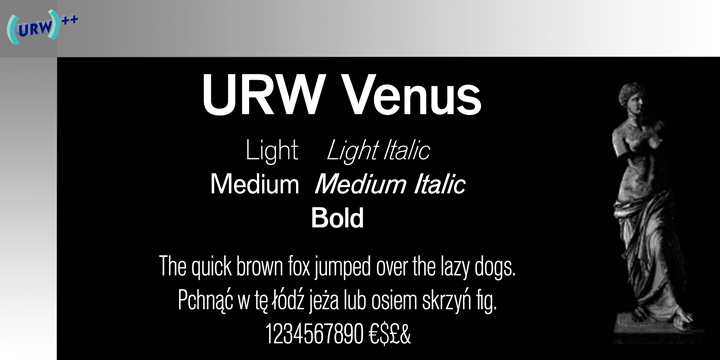
The Venus Font is perfectly designed for numerous elegant applications including beauty brand logos, luxury fashion campaigns, cosmetic packaging designs, jewelry advertisements, spa and wellness branding, feminine lifestyle magazines, wedding industry materials, high-end salon signage, romantic event invitations, and premium beauty product marketing. Its graceful character makes it particularly effective for beauty companies, fashion houses, luxury service providers, and lifestyle brands seeking to convey femininity, elegance, and sophisticated beauty in their visual communications and brand presentations.
What makes the Venus Font extraordinarily exciting is its divine fusion of classical beauty ideals with contemporary design sophistication. This elegant typeface embodies the essence of feminine grace and celestial beauty while incorporating modern typographic principles that ensure optimal performance across today's diverse media landscape. The font's captivating character emerges from its flowing curves, harmonious proportions, and carefully crafted details that evoke a sense of divine elegance and timeless beauty, making it perfect for brands seeking to establish connection with beauty-conscious and style-savvy audiences.
The Venus Font family encompasses multiple weights and styles designed to provide comprehensive beauty and luxury branding solutions. The collection typically includes thin, light, regular, medium, bold, and black weights, with many versions offering graceful italic variants that enhance the font's feminine appeal and romantic character. Some editions may include decorative flourishes, elegant ligatures, and ornamental elements that provide additional design options for creating unique typographic treatments and sophisticated beauty brand applications.
Beauty industry professionals and luxury brand designers consistently choose the Venus Font Free Download for its exceptional elegance and feminine appeal. The font features meticulously crafted spacing and kerning that ensures harmonious text flow and optimal readability across various beauty applications, from delicate product labels to large-scale advertising displays. Its refined construction maintains grace and clarity in both display and text uses, while the comprehensive character set includes uppercase and lowercase letters, numerals, punctuation marks, and special symbols, along with extensive language support for international beauty brands and global fashion communications.
The Venus Font represents the pinnacle of feminine typography, combining divine beauty inspiration with contemporary functionality. Its graceful aesthetic captures attention while maintaining the sophistication required for luxury beauty applications. The font's remarkable adaptability allows it to work effectively in both minimalist beauty contexts and elaborate decorative presentations, ensuring consistent elegance across websites, packaging designs, advertising campaigns, and premium beauty communications.
Embrace divine femininity and timeless elegance with the celestial beauty and sophisticated grace of the Venus Font, the ultimate choice for beauty typography excellence.